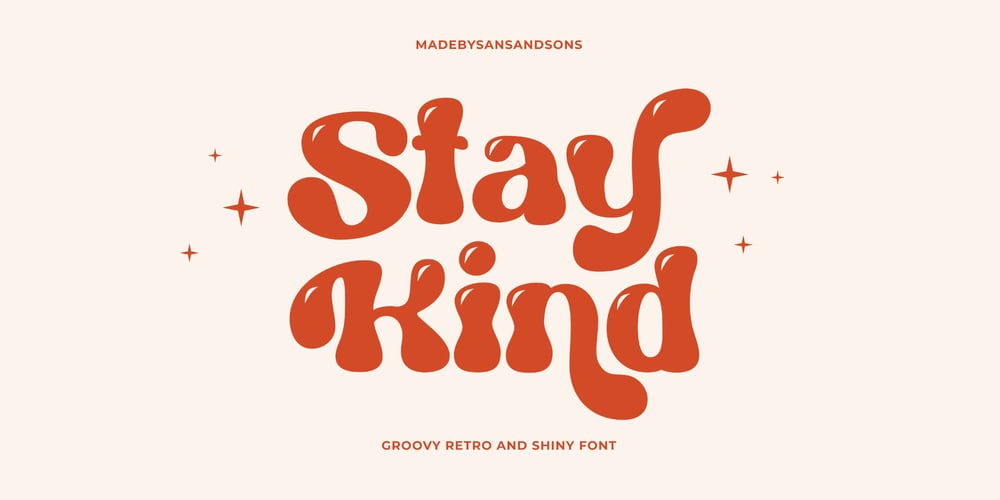
Stay Kind Font Family was designed by Angga Suwista and published by Sans And Sons. Stay Kind contains 2 styles and family package options. Stay Kind is Modern Retro with Fun and Groovy Style is perfect for branding, logos, shirts, invitation, stickers, master heads, Cricut projects, social media, posters, magazine, prints and more.